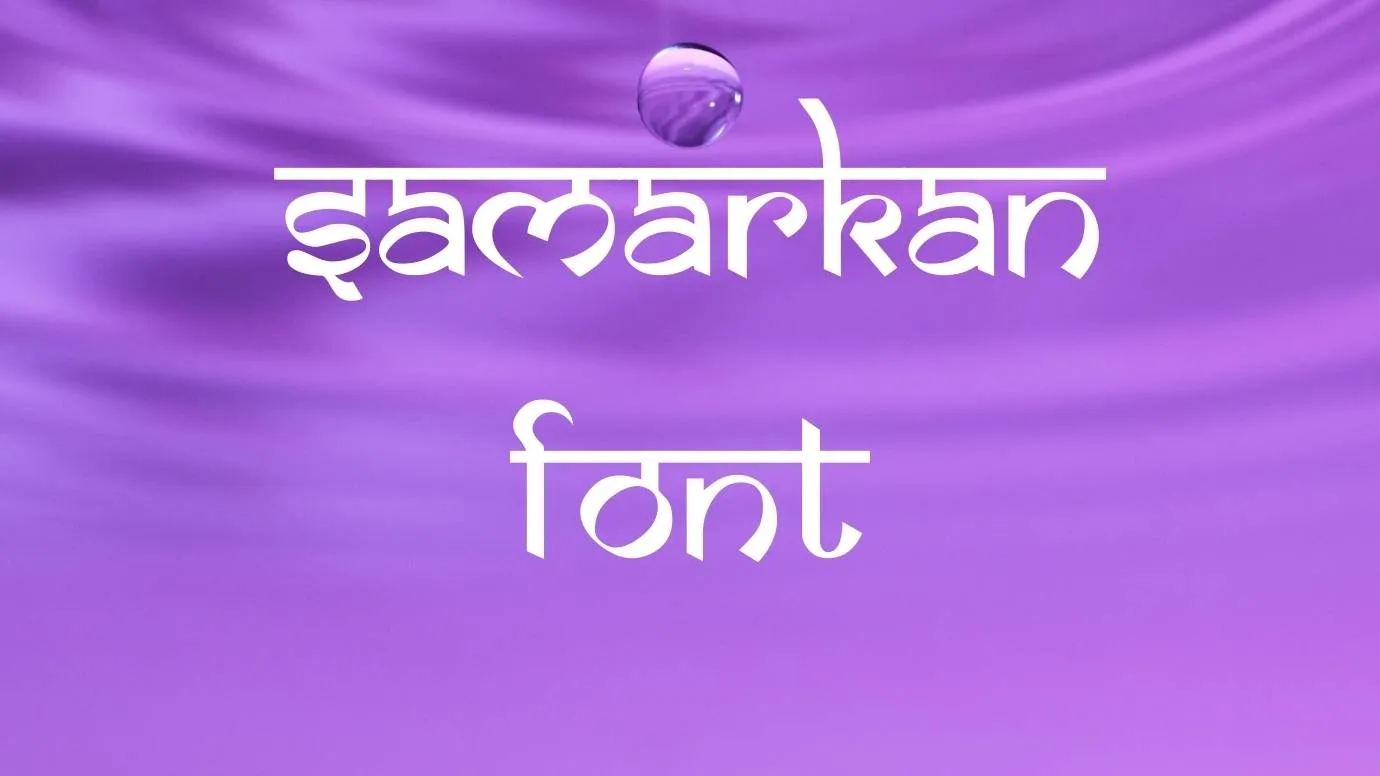
Samarkan is an elegant and contemporary typeface has been crafted by the well-known Titivillus Foundry. It encompasses over 121 characters, encompassing lowercase letters, and features 63 exceptional and original glyphs.
| Name | Samarkan Font |
| Type | Hindi |
| Designer | Titivillus Foundry |